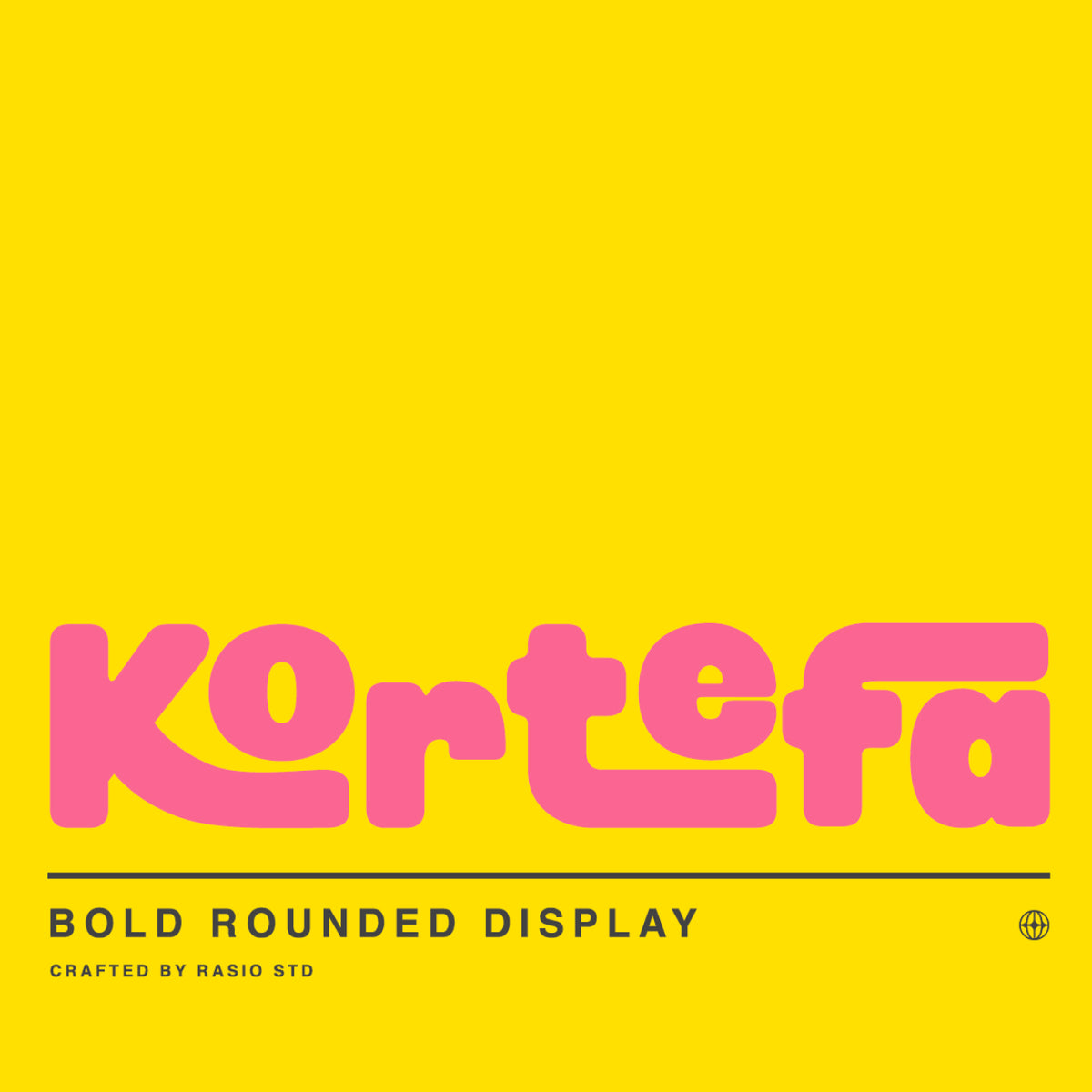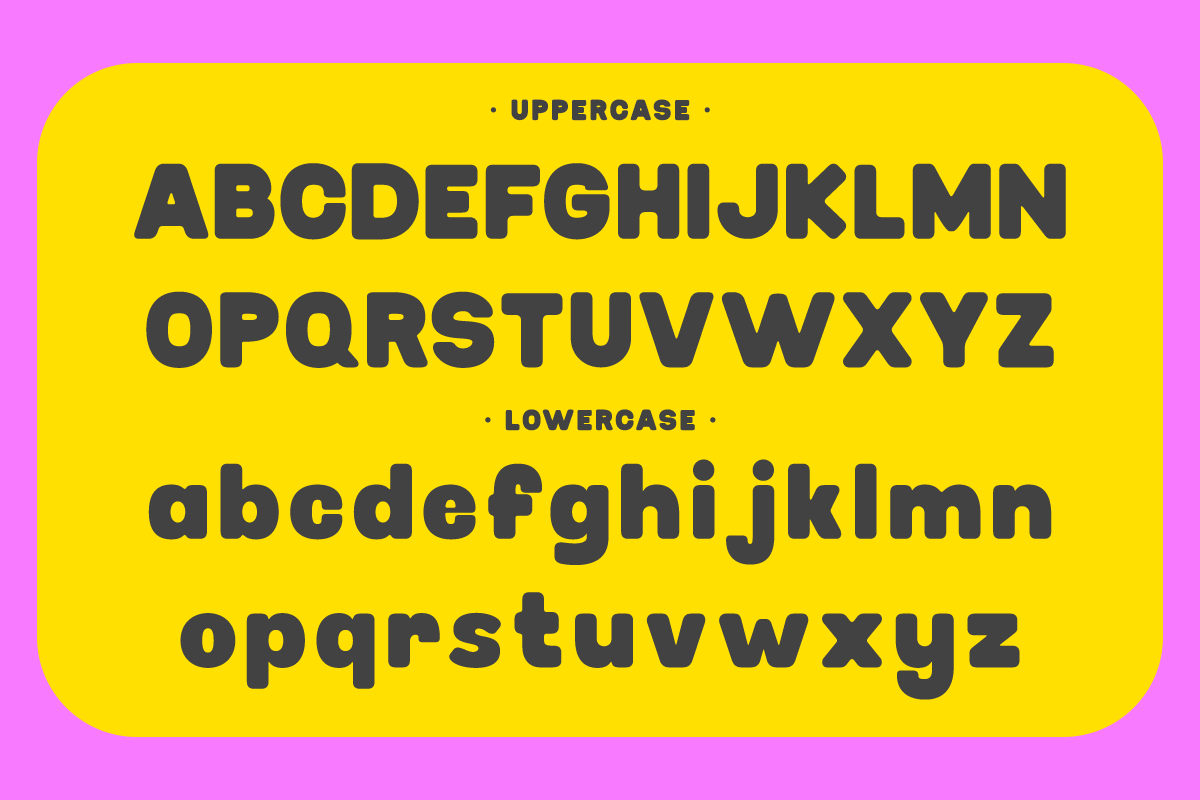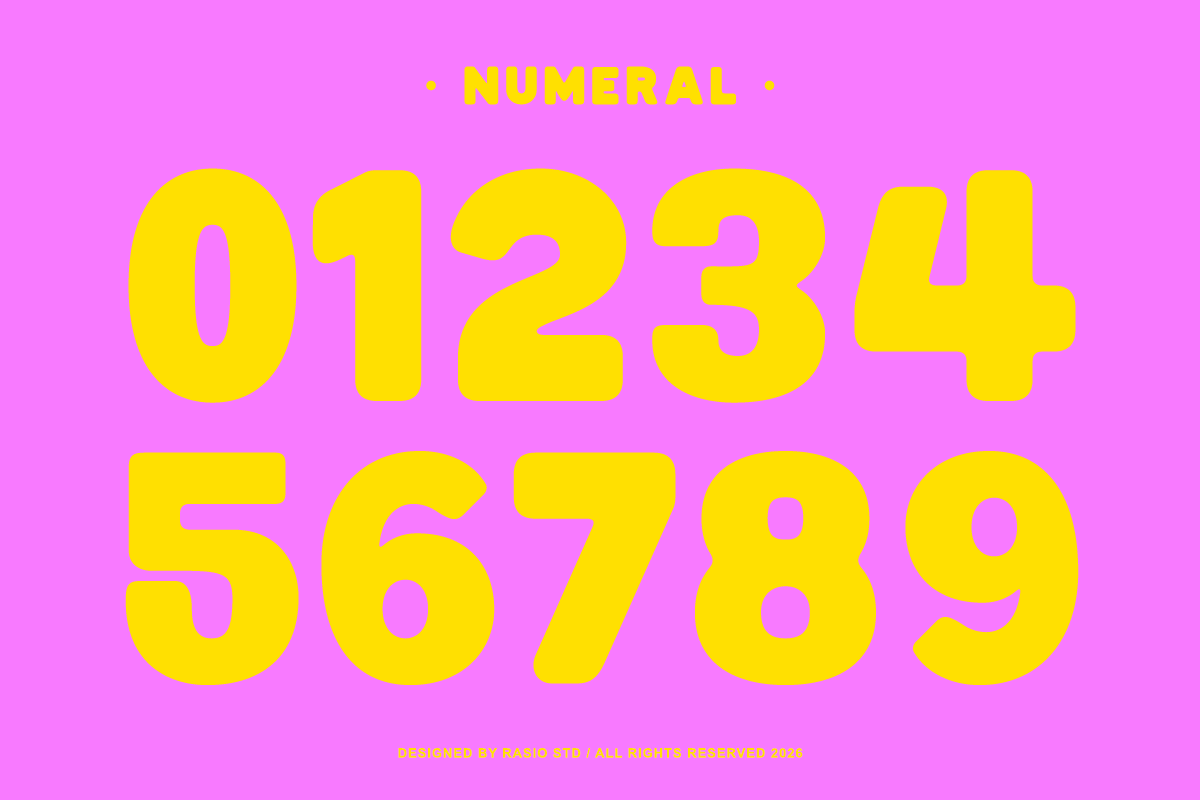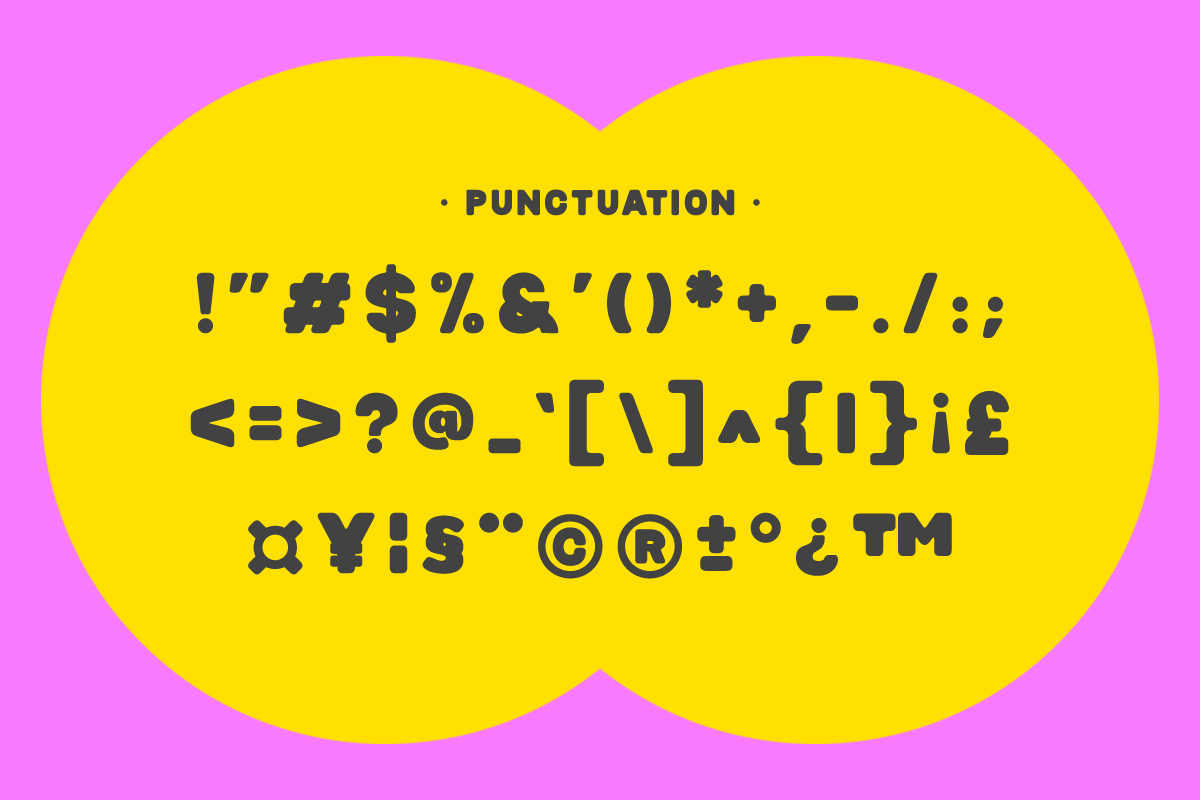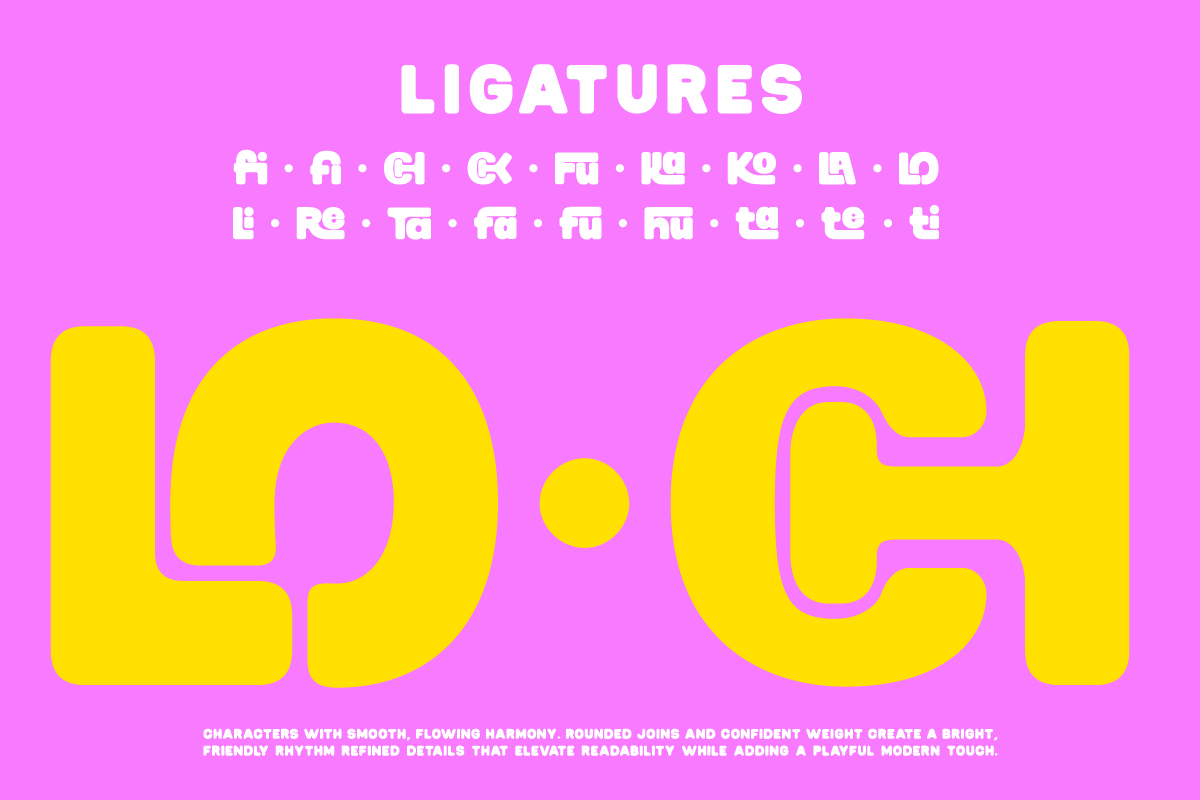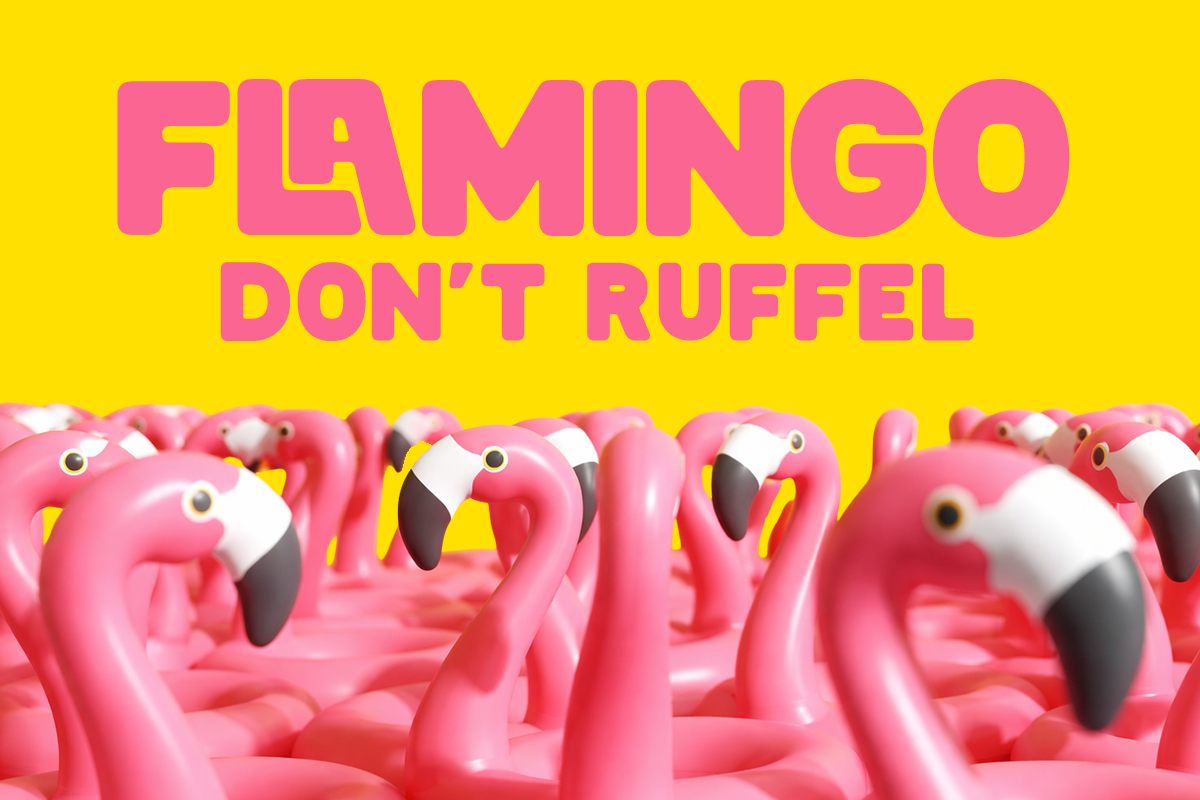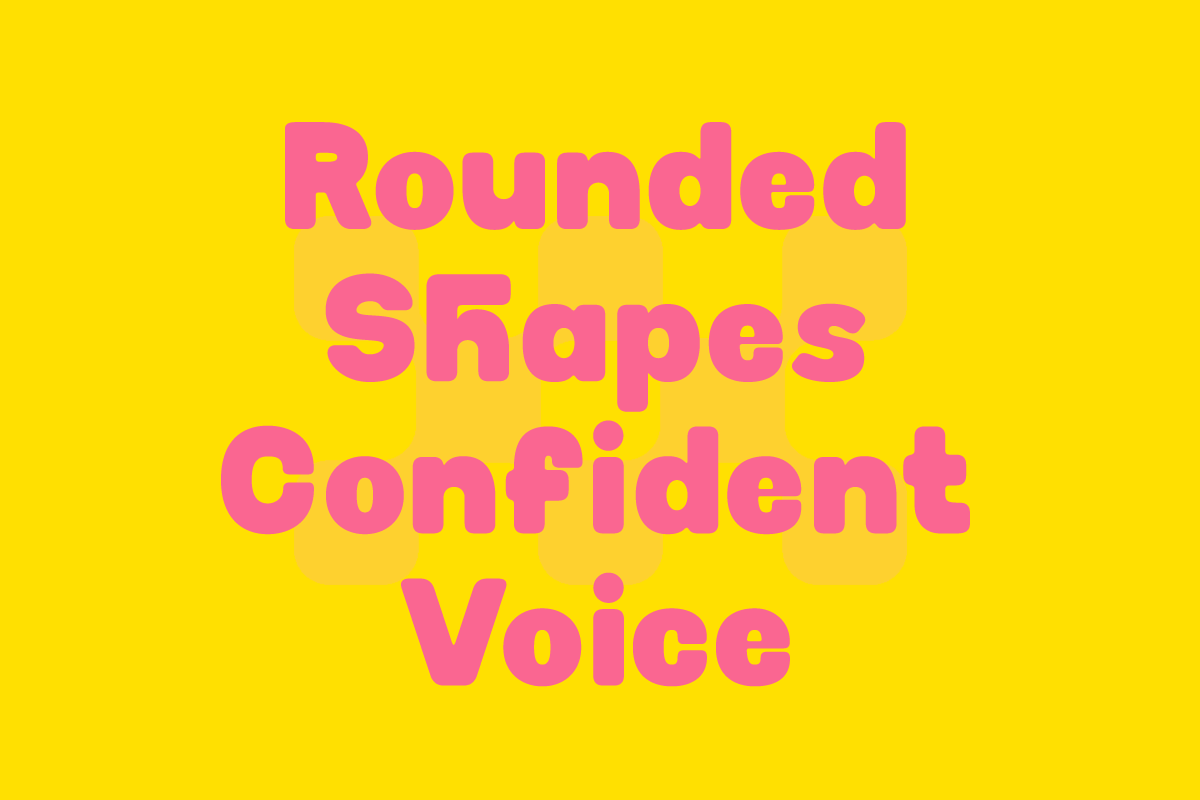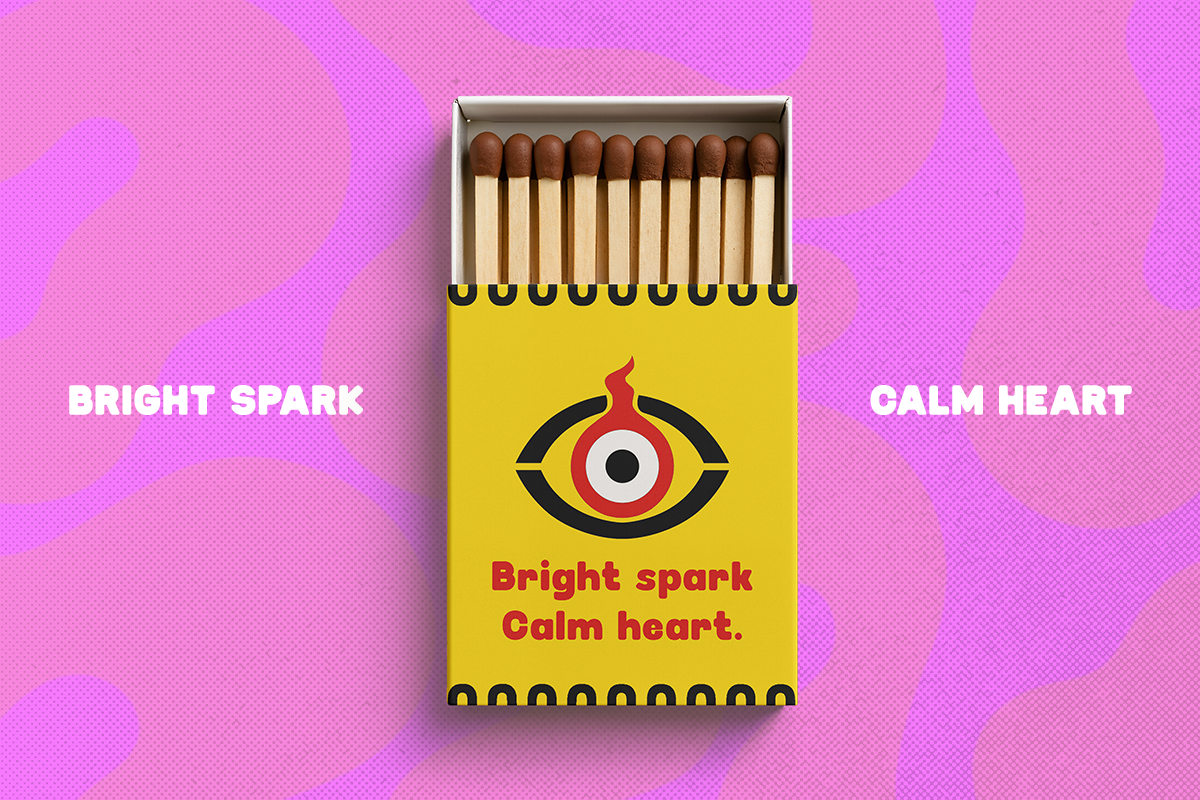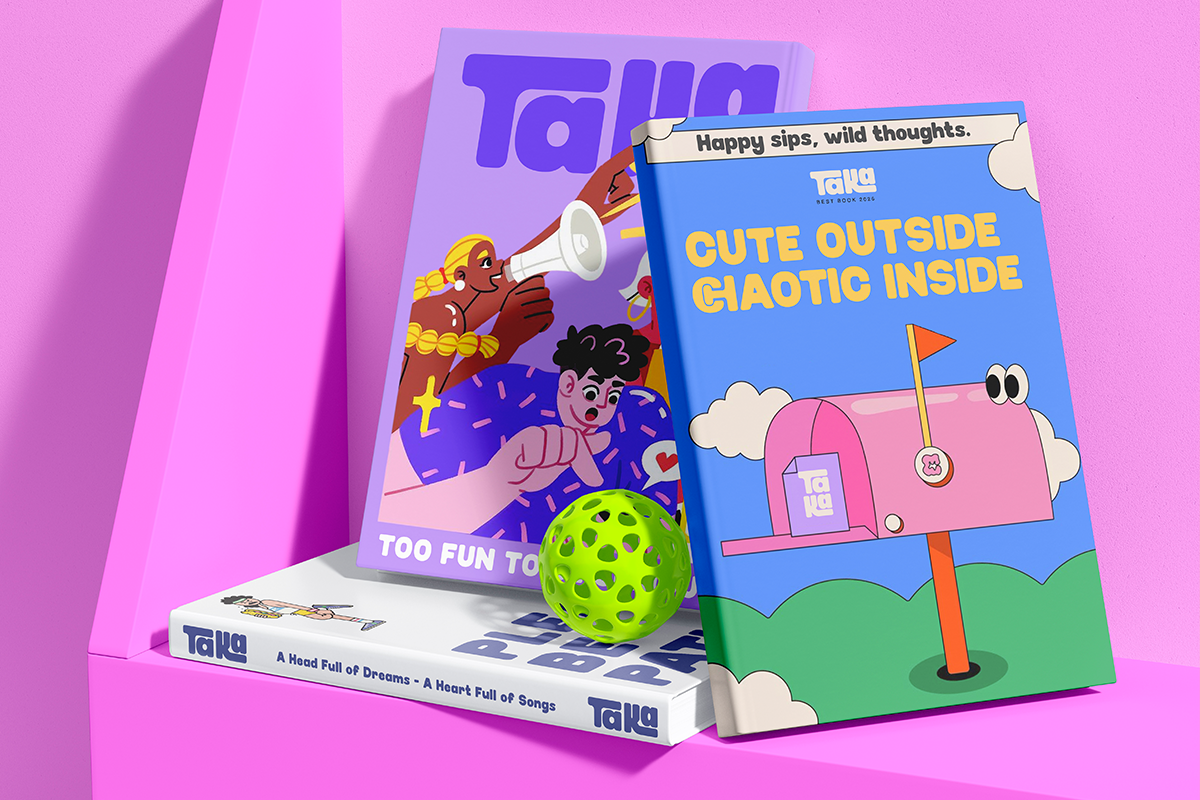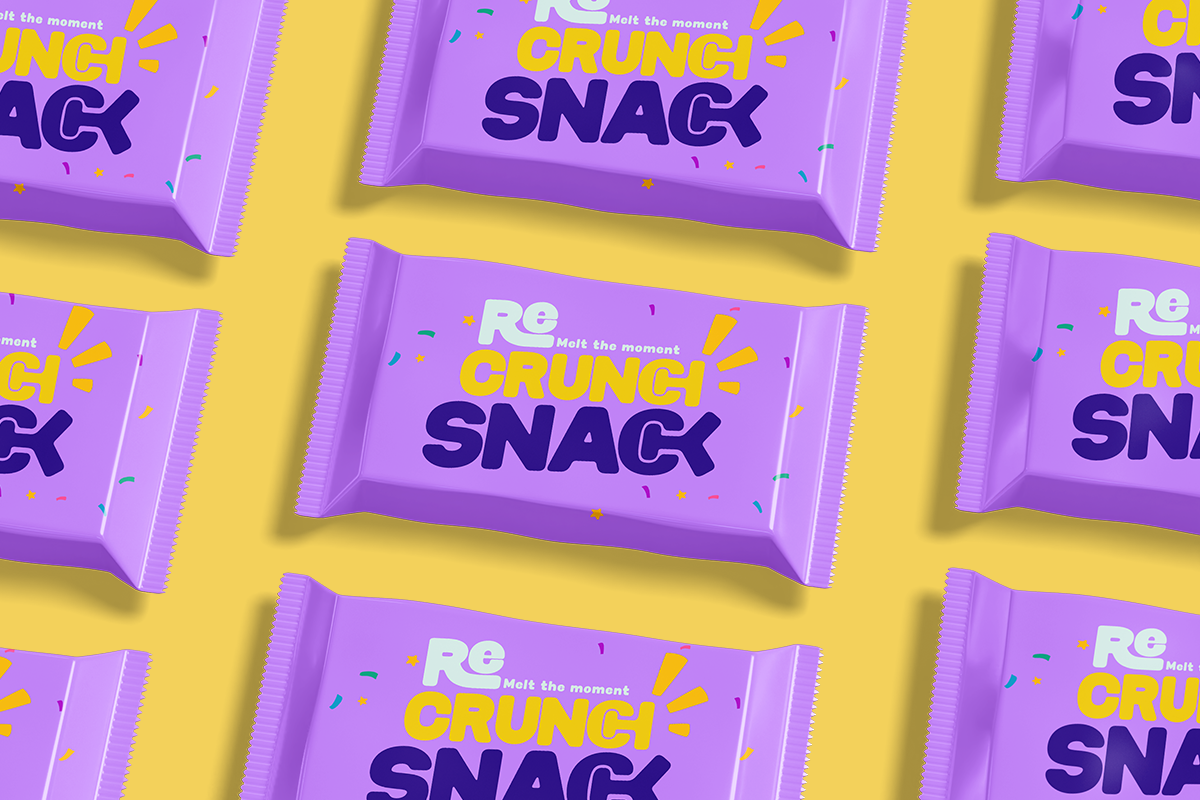
Kortefa Bold Rounded Display Font
Kortefa is a bold rounded display font crafted with playful curves and a strong visual presence. This typeface features smooth, chunky letterforms with a friendly and modern feel. The font includes uppercase and lowercase letters, numerals, punctuation, and stylistic alternates delivered in OTF/TTF formats and ready for both print and digital use. Its thick, soft shapes make Kortefa ideal for standout headlines, creative brand identities, eye‑catching posters, packaging, and any project.
Relevance and Use Cases is perfect for Kortefa is perfect for designers and creatives seeking a bold, fun, and memorable typeface. Its thick, rounded shapes make it well‑suited for brand identities, children’s products, packaging, event posters, social media graphics, and editorial headings.
Ligatures Supports
Kortefa is a bold rounded display font with chunky, smooth letterforms, including uppercase and lowercase characters, numerals, punctuation, and stylistic alternates. It is available in OTF, TTF, and WOFF formats and supports ligatures.